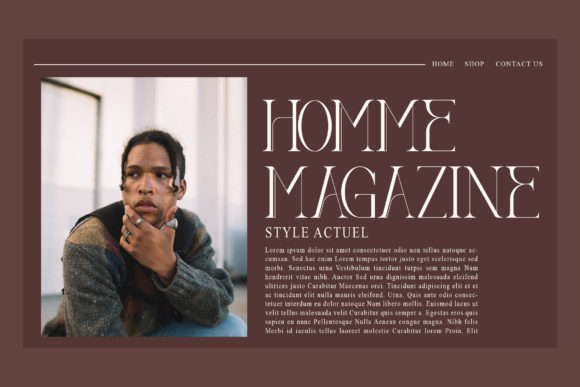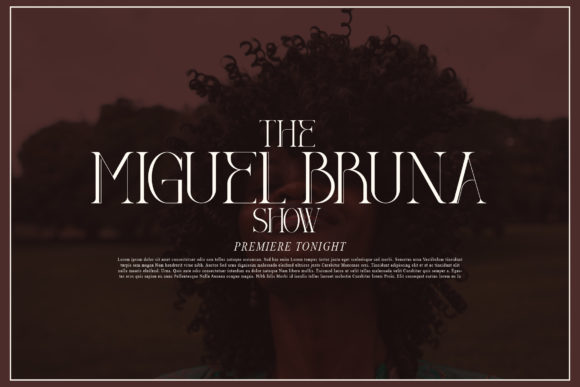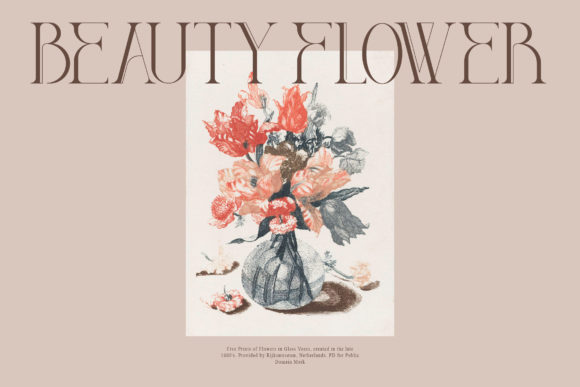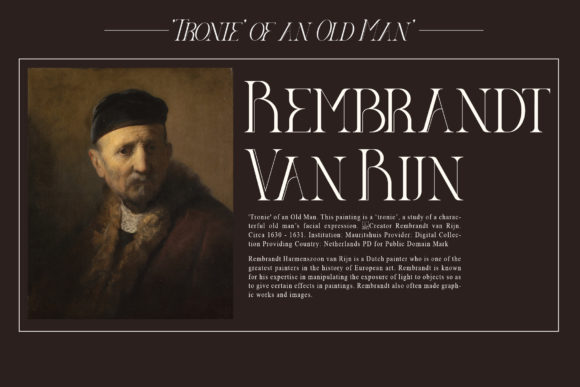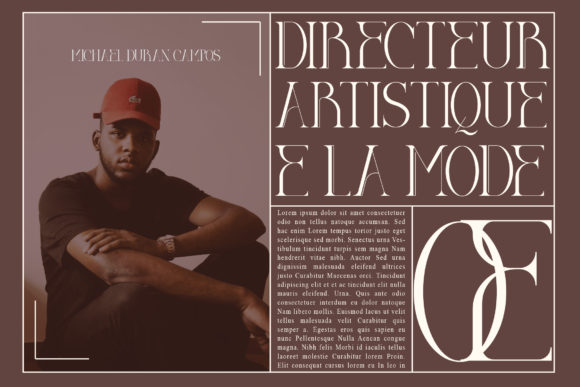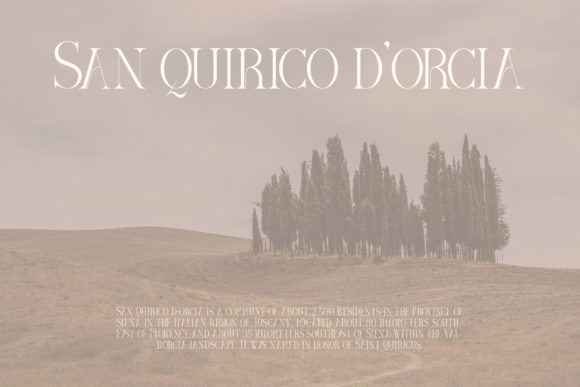
Discover the Elegance of Diego Font: Elevate Your Designs with Sophistication
In the world of typography, fonts play a crucial role in conveying messages, evoking emotions, and creating lasting impressions. For designers and crafters seeking a typeface that embodies elegance, versatility, and creative freedom, Diego Font stands out as an exceptional choice. This thin lettered and elegant serif font is not only aesthetically pleasing but also highly functional, thanks to its PUA (Private Use Area) encoding. In this article, we’ll explore the features, benefits, and applications of Diego Font, and why it should be a part of your design toolkit.
The Distinctive Features of Diego Font
Diego Font is characterized by its slender lines, elegant serifs, and a sophisticated vibe that can elevate any design project. Here are some of its key features:
• Thin Lettered and Elegant Serif: The font’s slim and refined appearance makes it perfect for designs that require a touch of luxury, sophistication, and modernity.
• PUA Encoded: The PUA encoding allows for easy access to all glyphs and swashes, providing designers with a wide range of creative possibilities. This feature is especially useful for those who want to add a personal touch to their work without the hassle of complicated font management.
• Incredibly Versatile: Whether you’re working on a branding project, a wedding invitation, a fashion magazine, or any other design that requires a high level of elegance and flexibility, Diego Font adapts seamlessly.
Benefits of Using Diego Font
Diego Font offers several advantages that make it an attractive option for designers and crafters:
• Enhanced Creativity: With its extensive range of glyphs and swashes, Diego Font encourages creativity and experimentation, allowing designers to push the boundaries of their work.
• Time-Efficient: Being PUA encoded means that you can access all the special characters directly from your keyboard, streamlining your design process.
• Cross-Platform Compatibility: Diego Font is compatible with various design software and platforms, ensuring that your work looks great across different mediums.
• Unique Designs: The font’s distinctive style ensures that your designs stand out from the crowd, capturing the attention of your audience and leaving a lasting impression.
Applications of Diego Font
The versatility of Diego Font makes it suitable for a wide range of design projects. Here are some of the areas where it truly shines:
• Branding and Logotypes: Create memorable brand identities with a touch of sophistication and elegance.
• Wedding and Event Stationery: Add a luxurious feel to your wedding invitations, menus, and event programs.
• Fashion and Beauty: Use Diego Font in fashion magazines, beauty blogs, and product packaging to convey a sense of style and luxury.
• Packaging and Product Design: Elevate your product design with a font that communicates quality and sophistication.
Diego Font is more than just a typeface; it’s a design companion that offers elegance, versatility, and creative freedom. Its thin lettered and elegant serif design, coupled with PUA encoding, makes it an invaluable asset for designers and crafters looking to create stunning and unique designs. Whether you’re aiming to craft a brand identity, design event stationery, or create captivating fashion content, Diego Font provides the perfect blend of style and functionality. Incorporate Diego Font into your design projects and discover the power of typography in enhancing your creative vision.